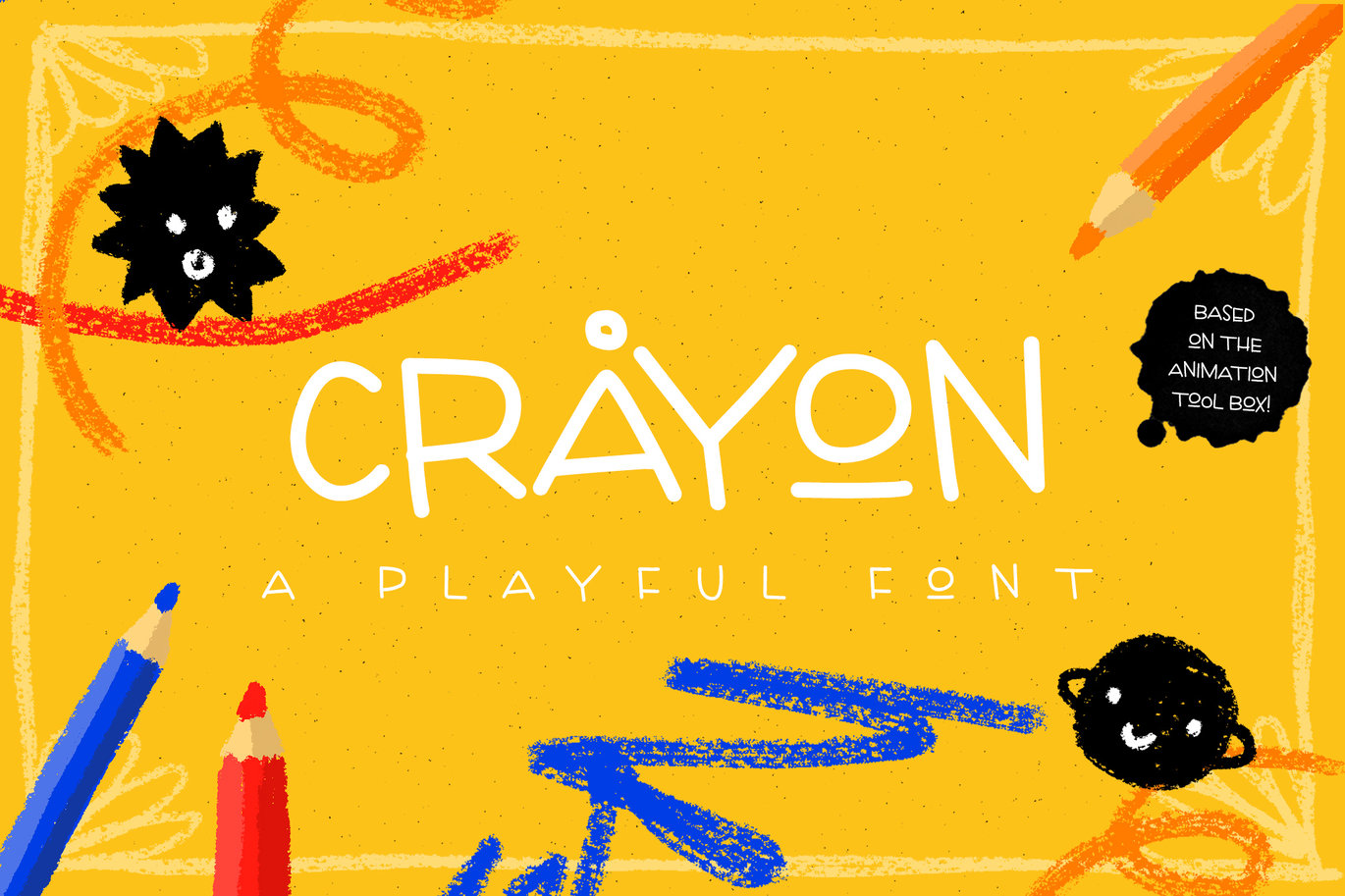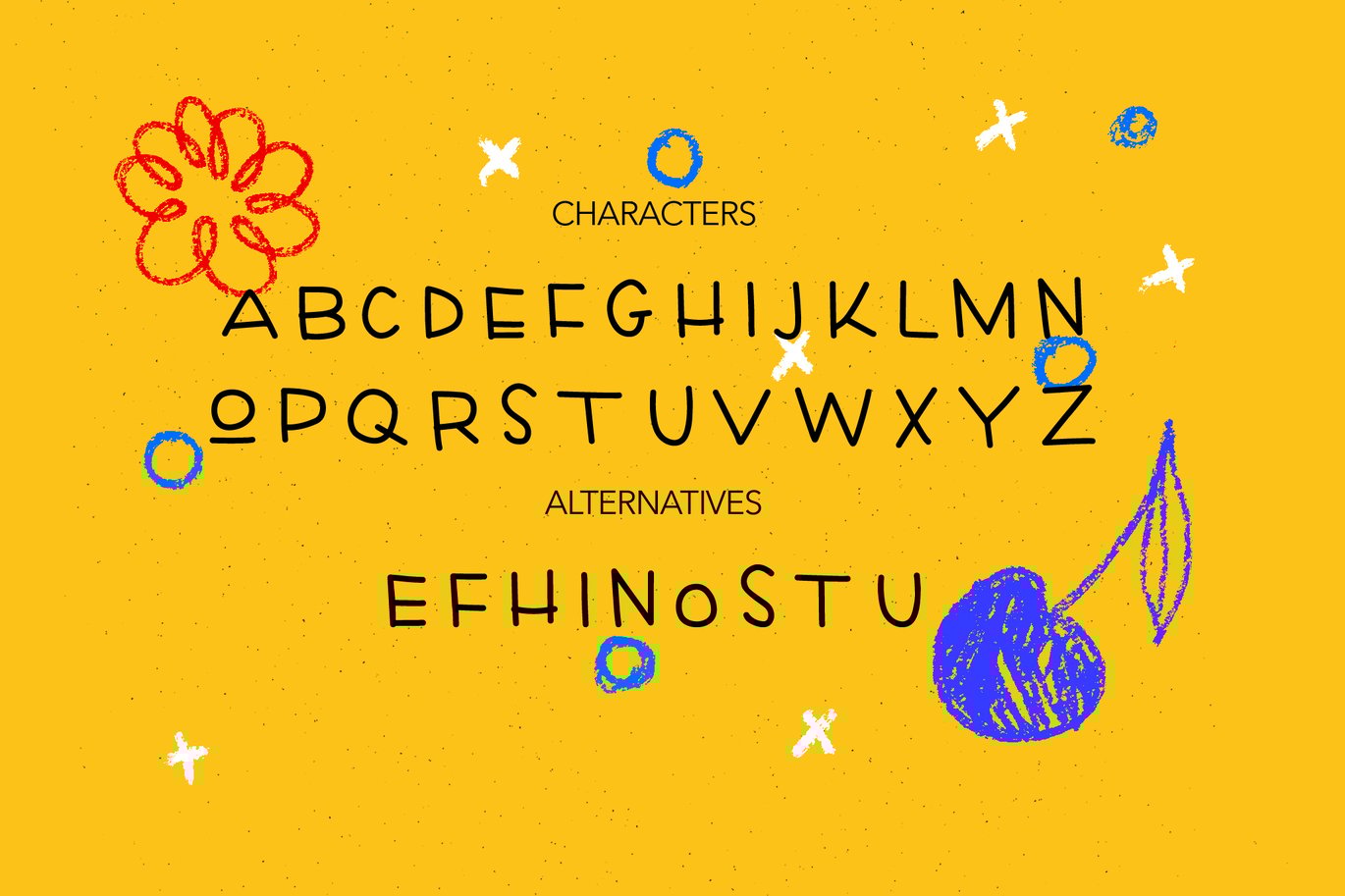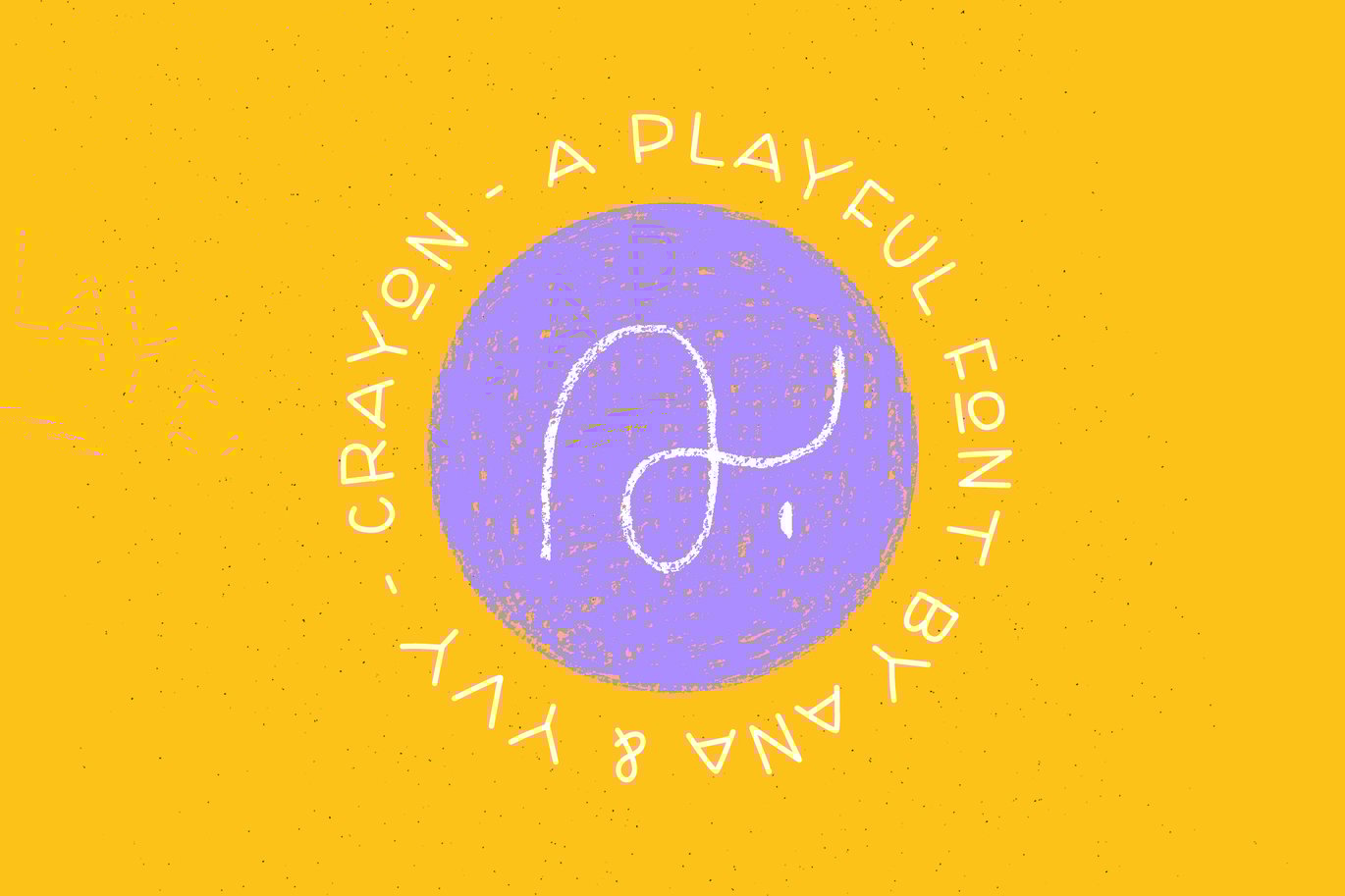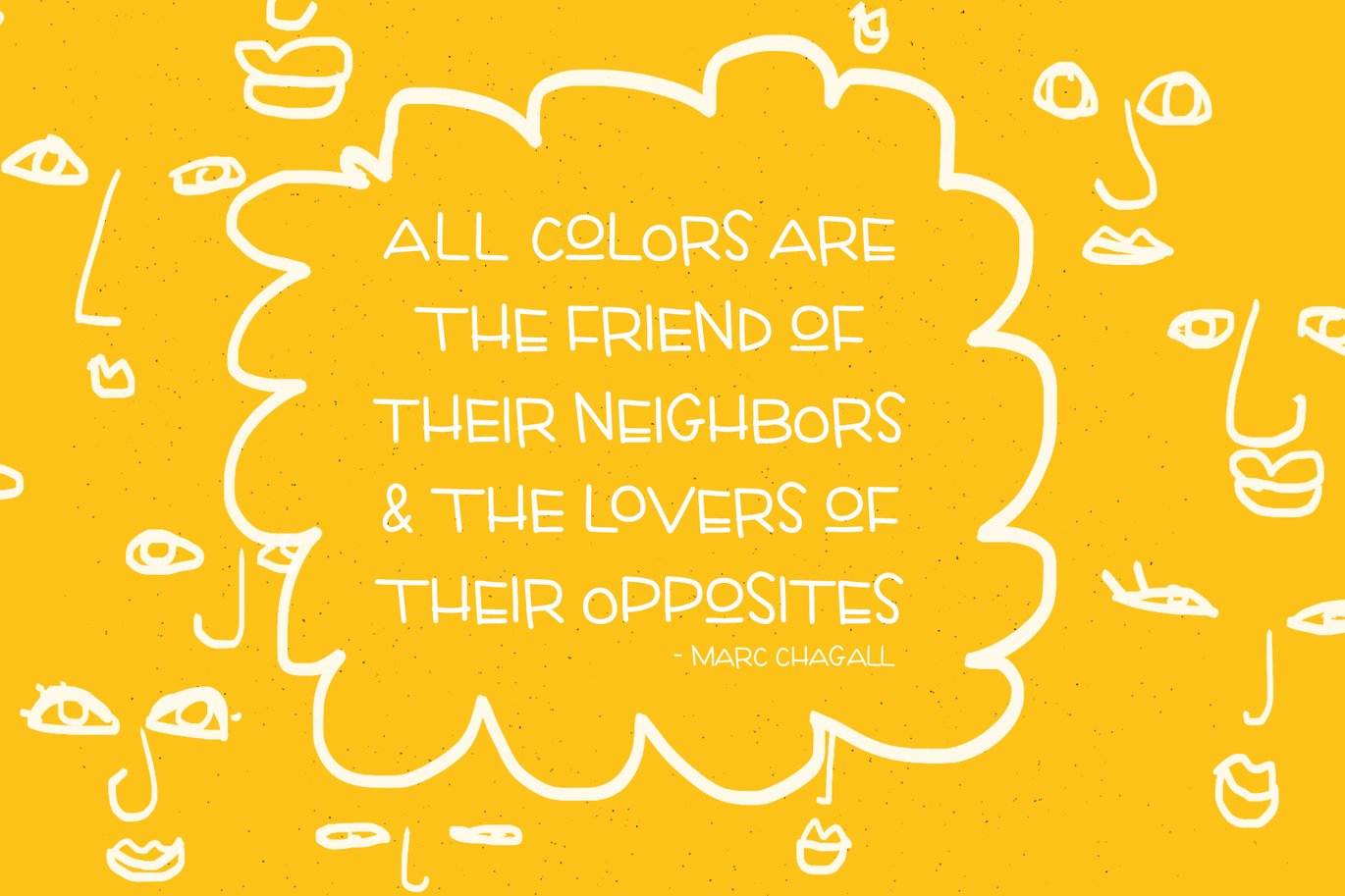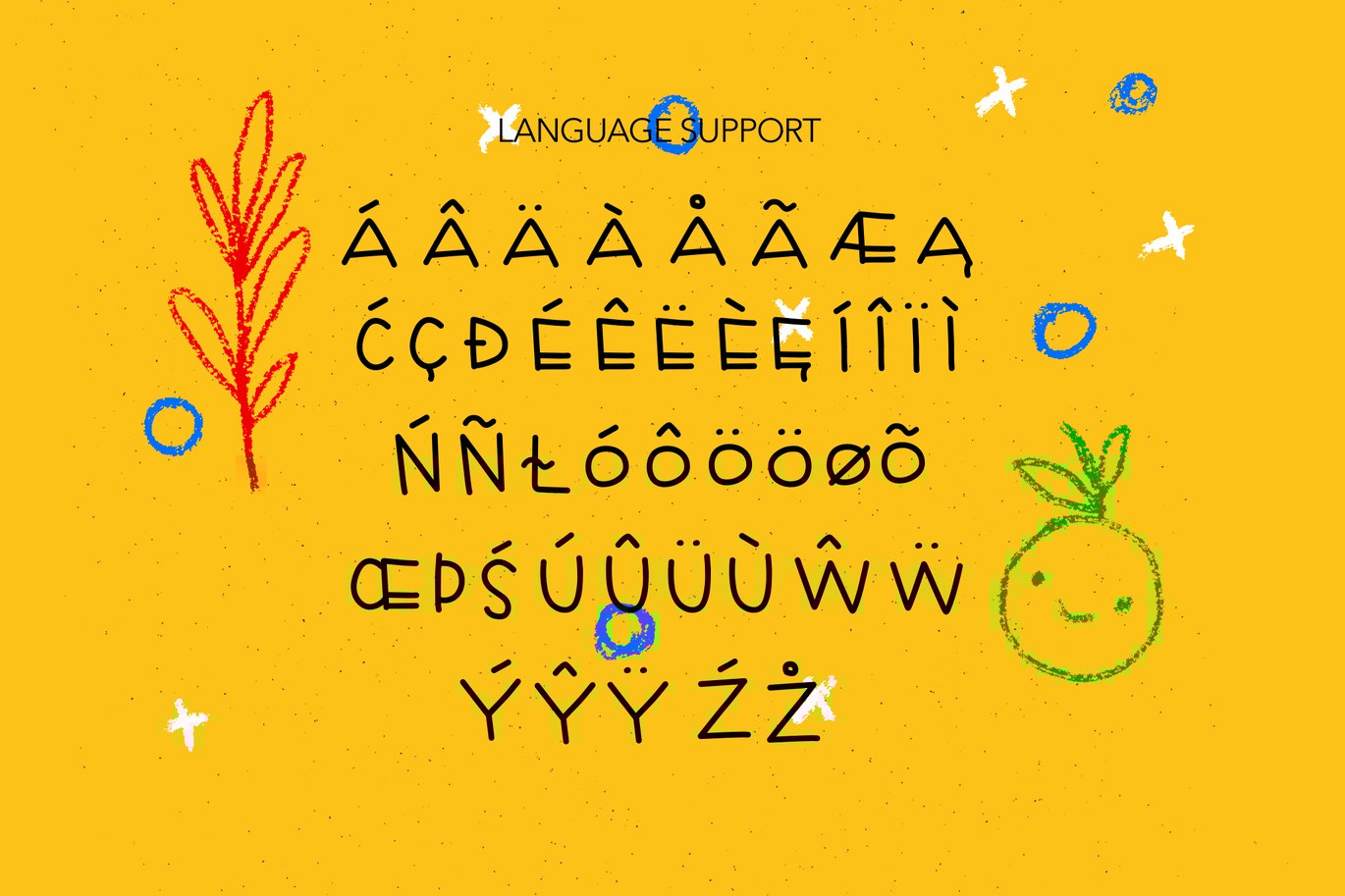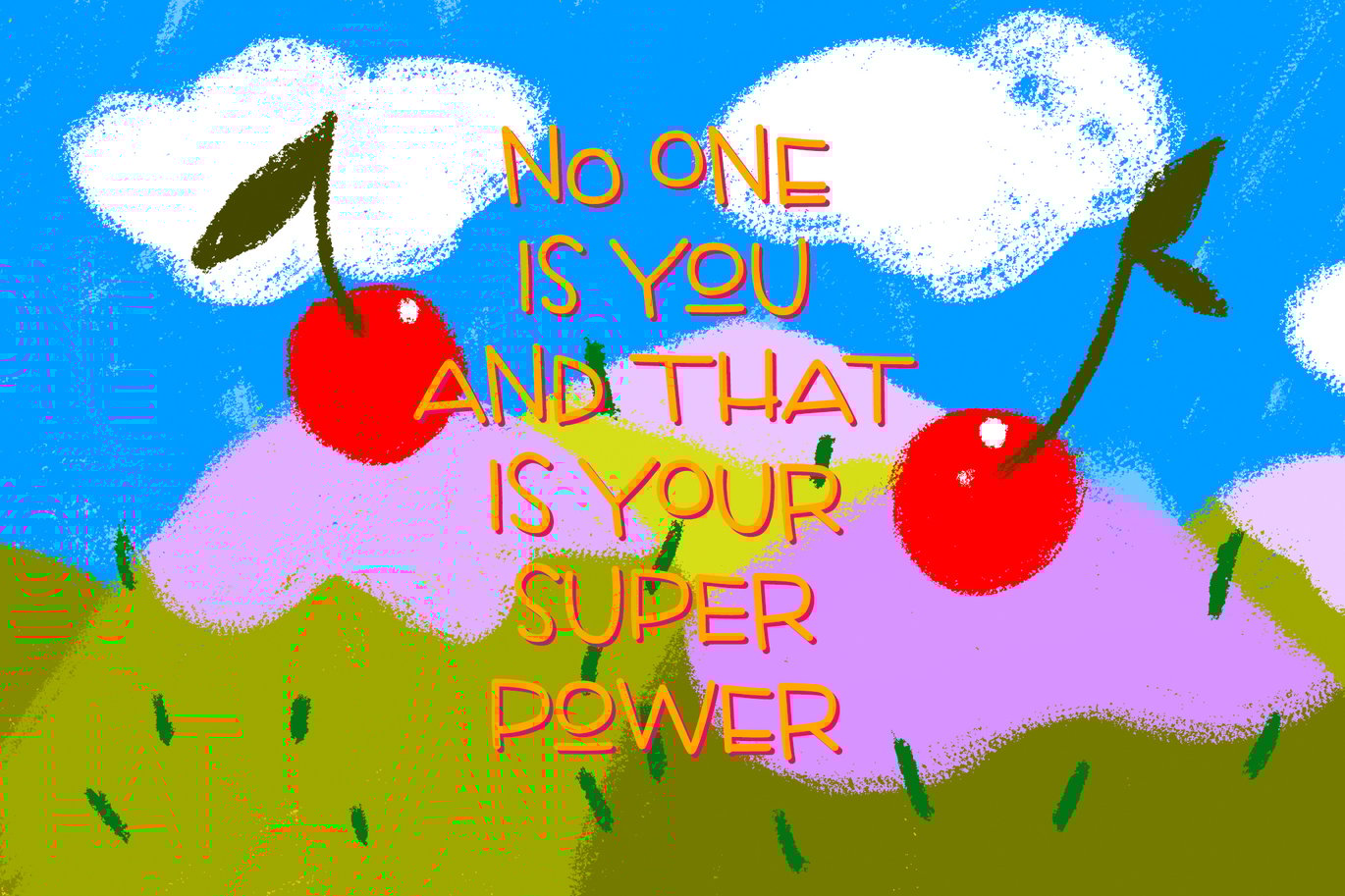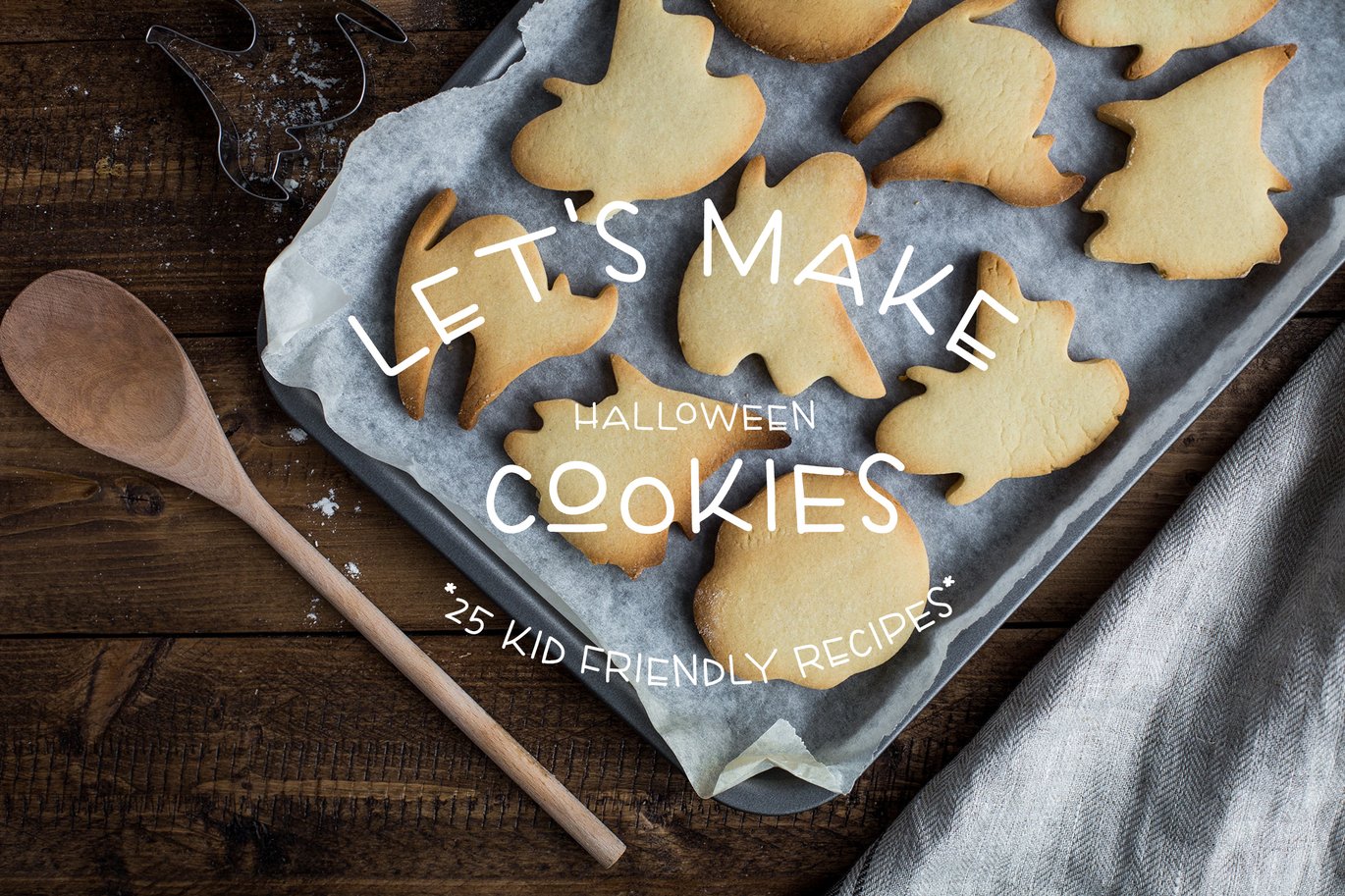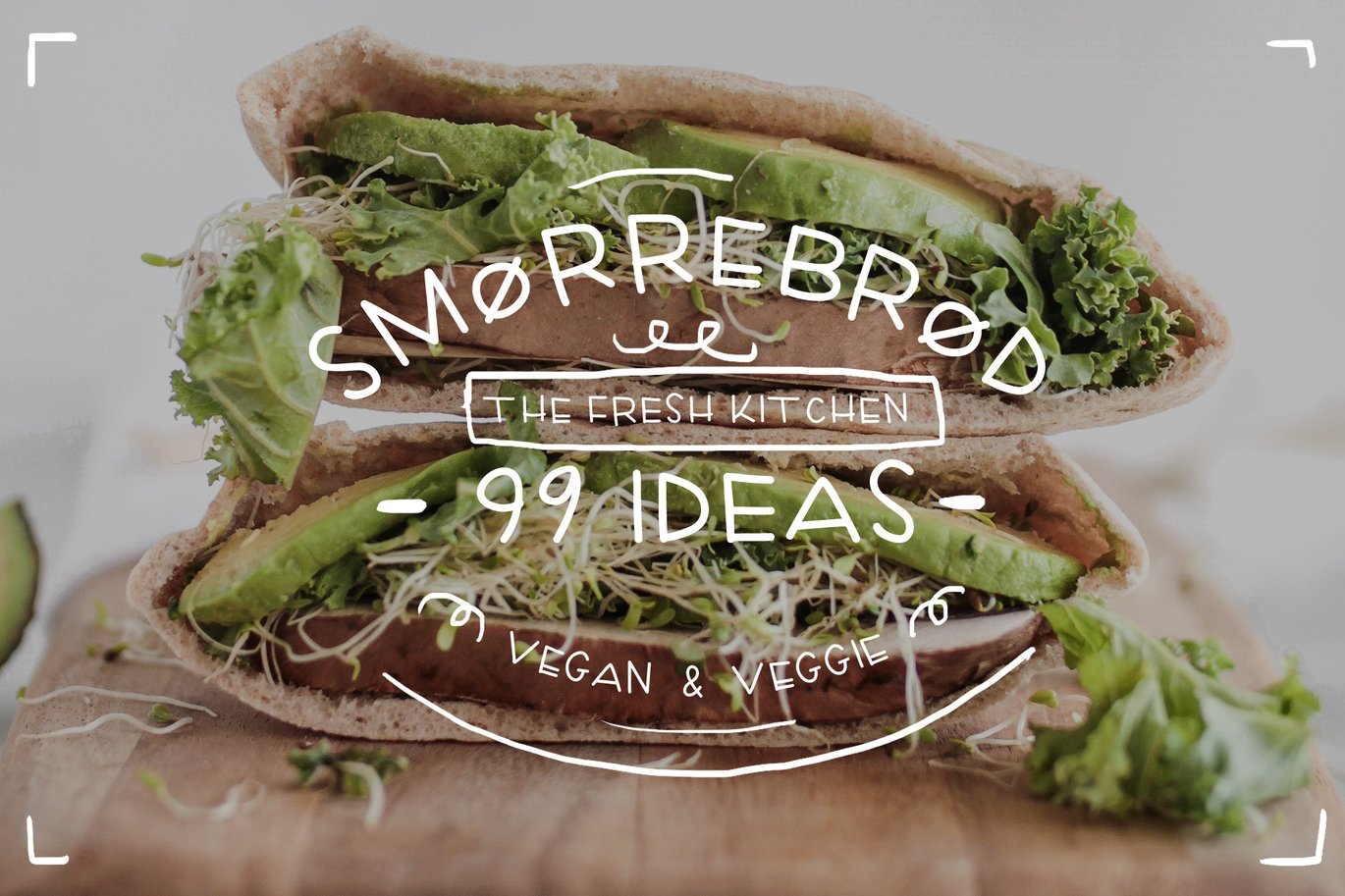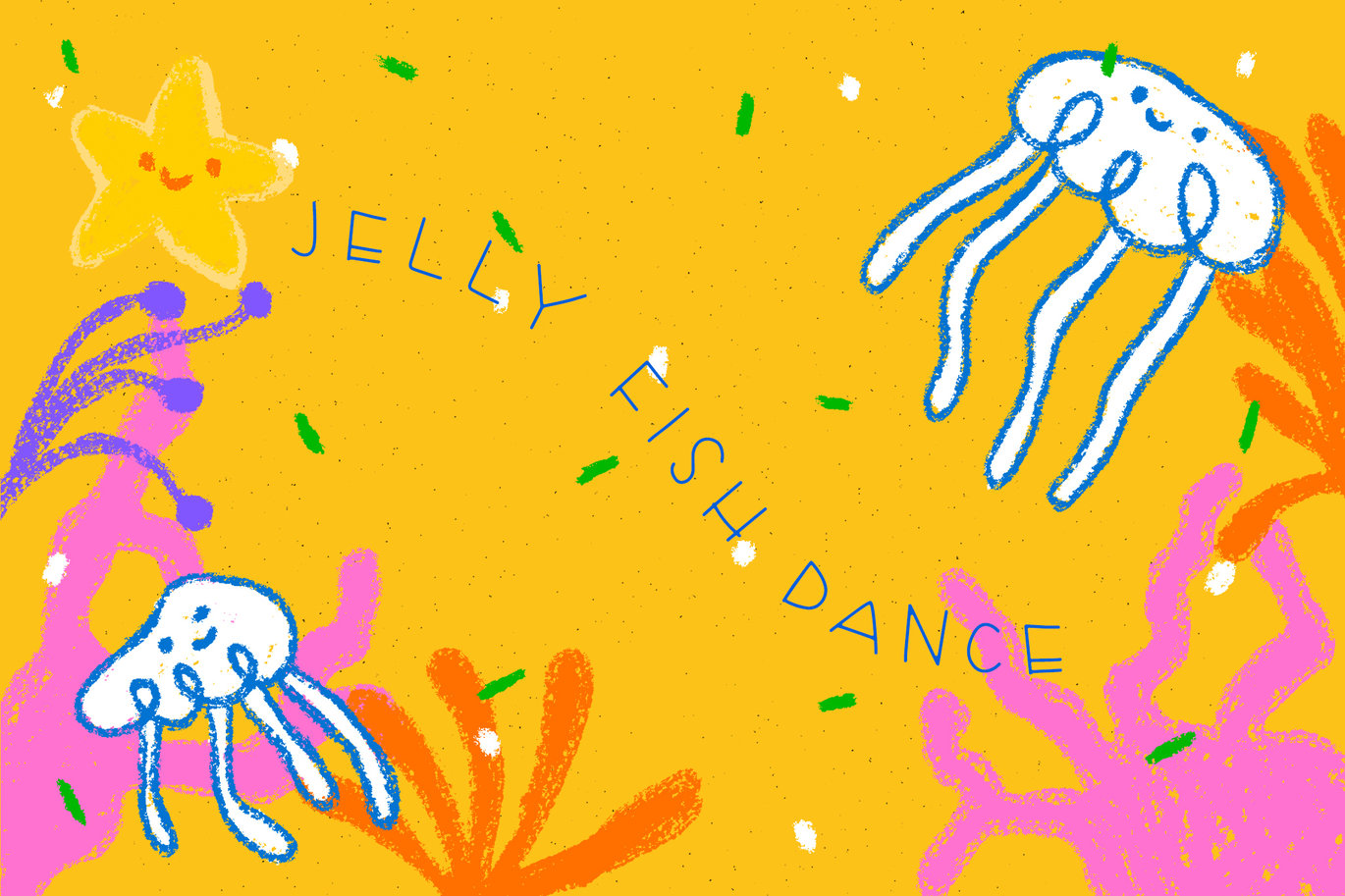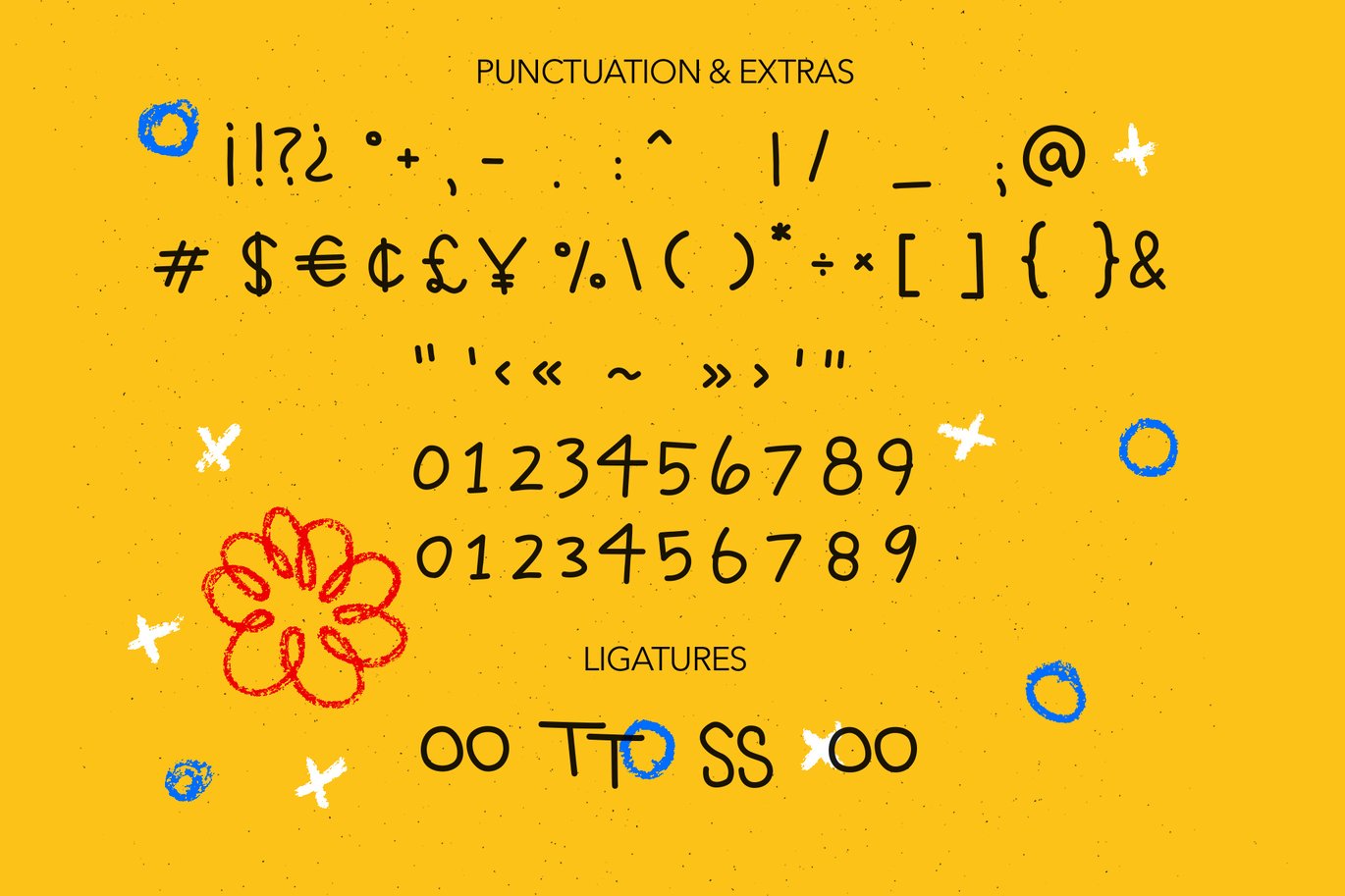
Crayon – playful handmade font
Say hello to Crayon font!
Crayon is an uppercase handmade playful and round font for fun design projects like comic artworks, children invitations, kids party and much more!
The font includes different language support and alternate characters for more flexibility in your design.